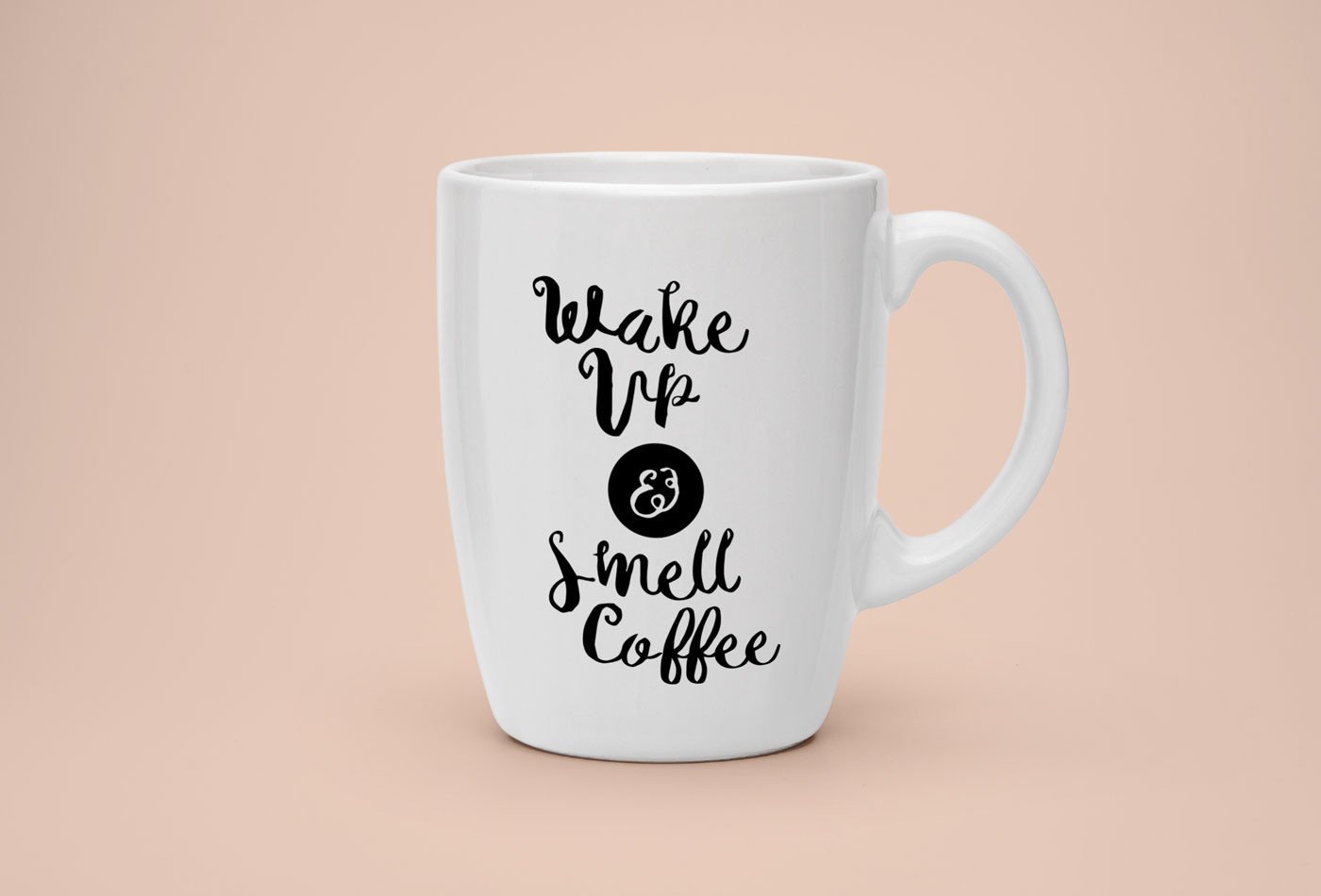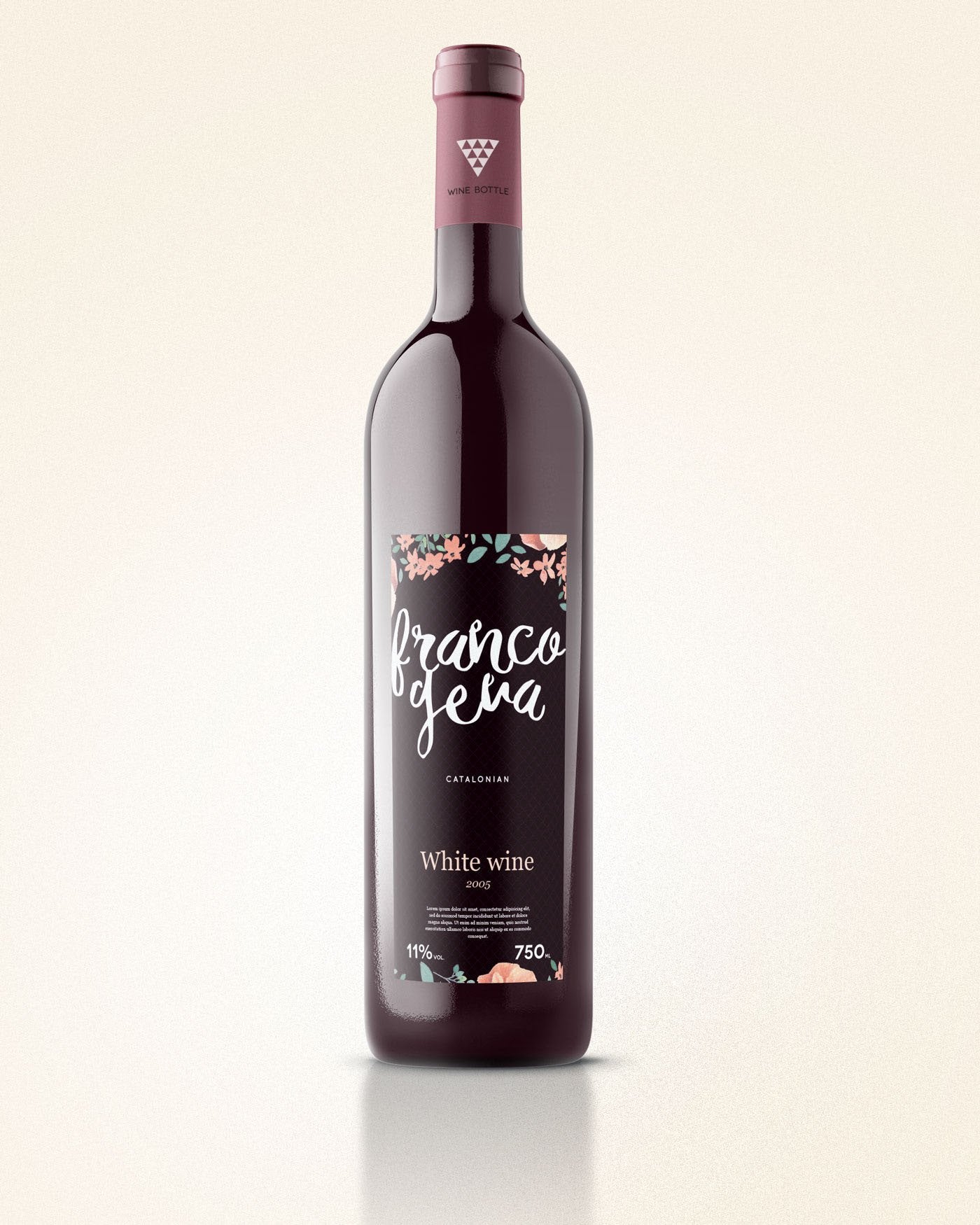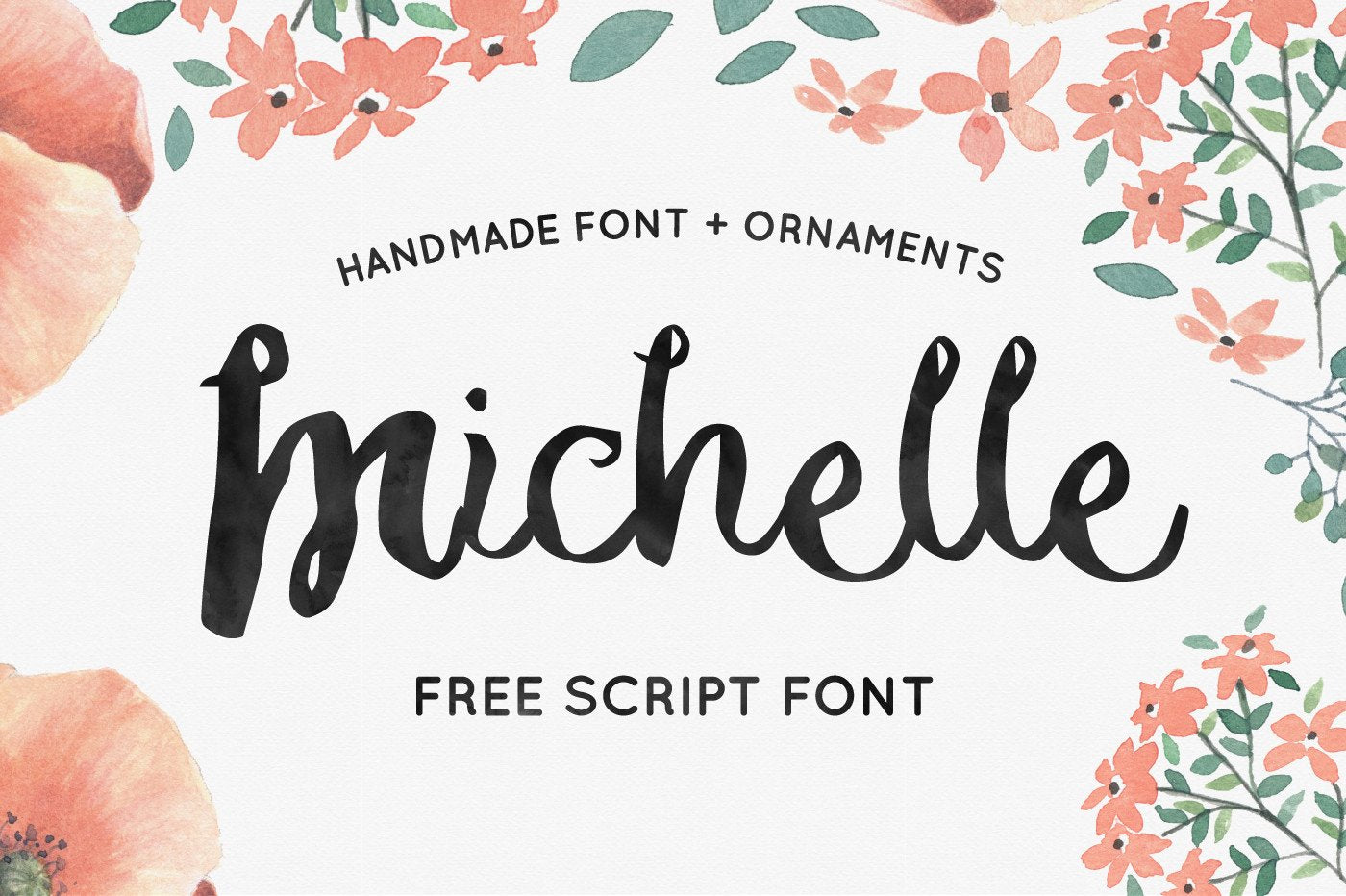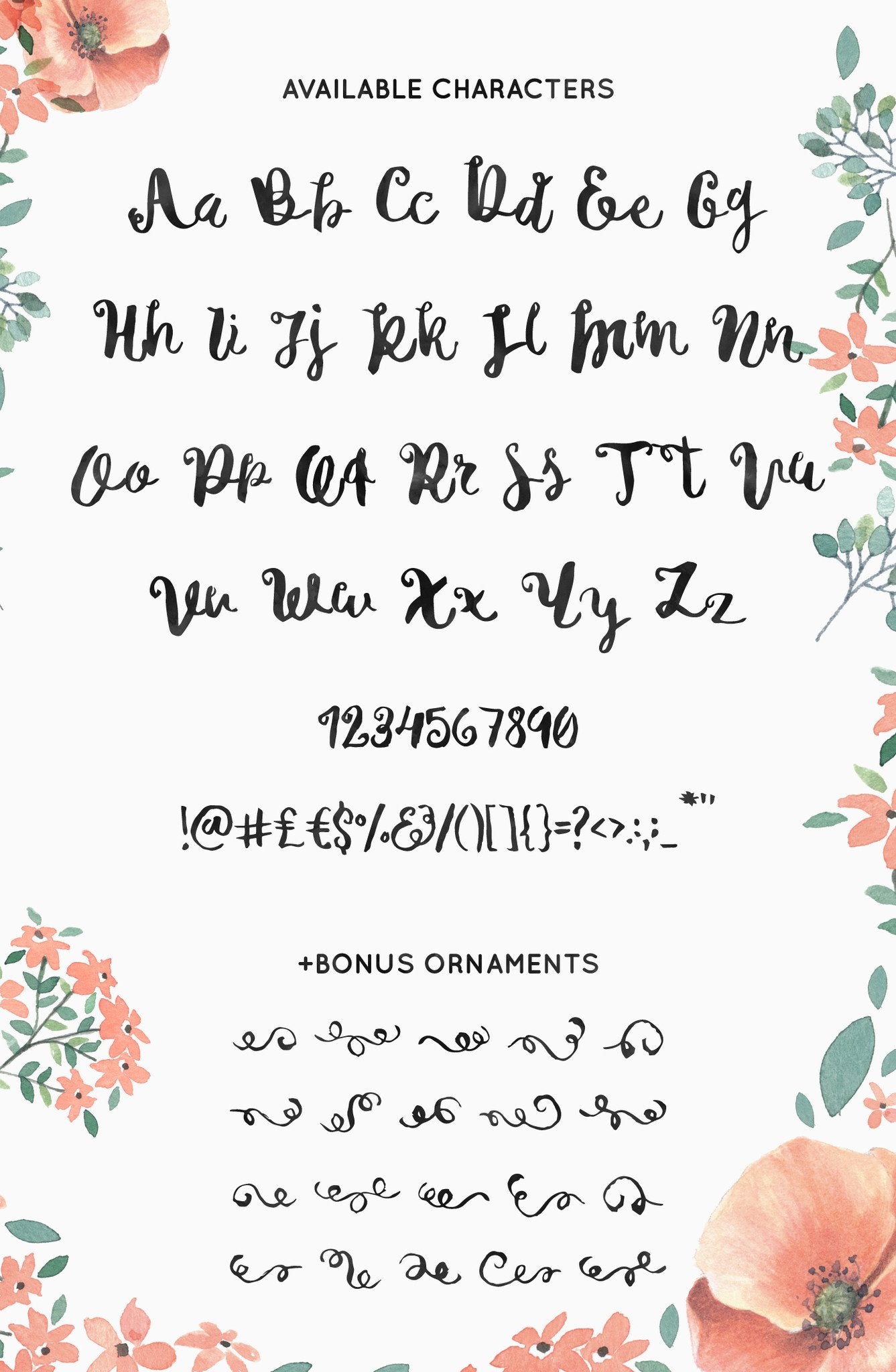
Michelle – Free Handmade Script Font By Noe Araujo
We’re so stoked to announce a free handmade script font called Michelle by Noe Araujo. He has handcrafted this amazing handcrafted font with love and care. It’s inspired by that modern and floating free style that comes naturally from Noe’s talented touch.
He made this great font just for you who is looking for something natural, script for your logotype or maybe for a wedding card or some headlines for your website. This great font is just perfect for that! Remember to check out also Noe’s Script Bundle – 4 Fonts to get more of his handcrafted fonts.